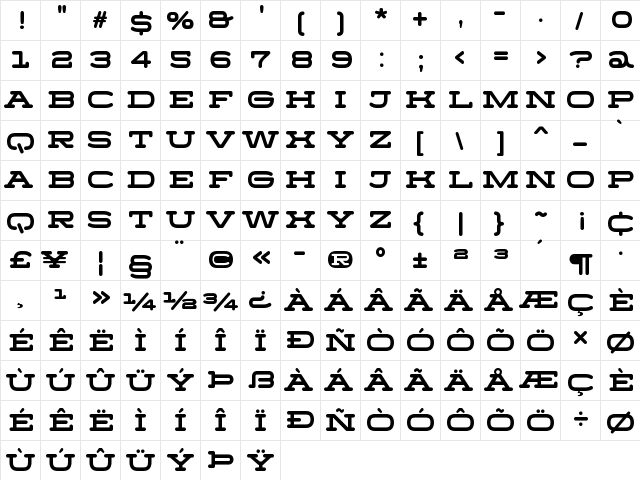
Menscho Regular
Regular ·  Situjuh Nazara ·
DesignerSitujuh Nazara
Design Context for Menscho Typeface
Menscho takes a measured approach to typography — its balanced proportions and neutral character make it a reliable workhorse for both digital and print work.
Pro Tip: Pair Menscho with a font of contrasting weight or personality to build a more expressive typographic hierarchy.